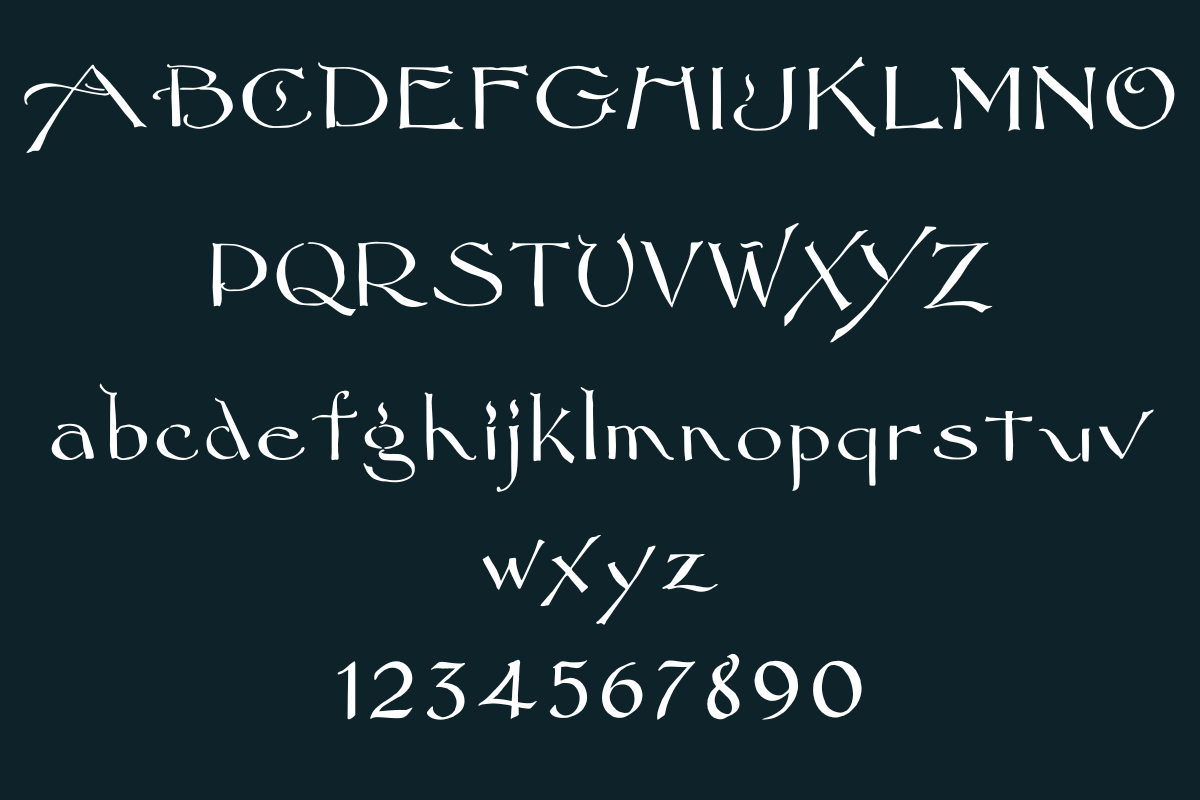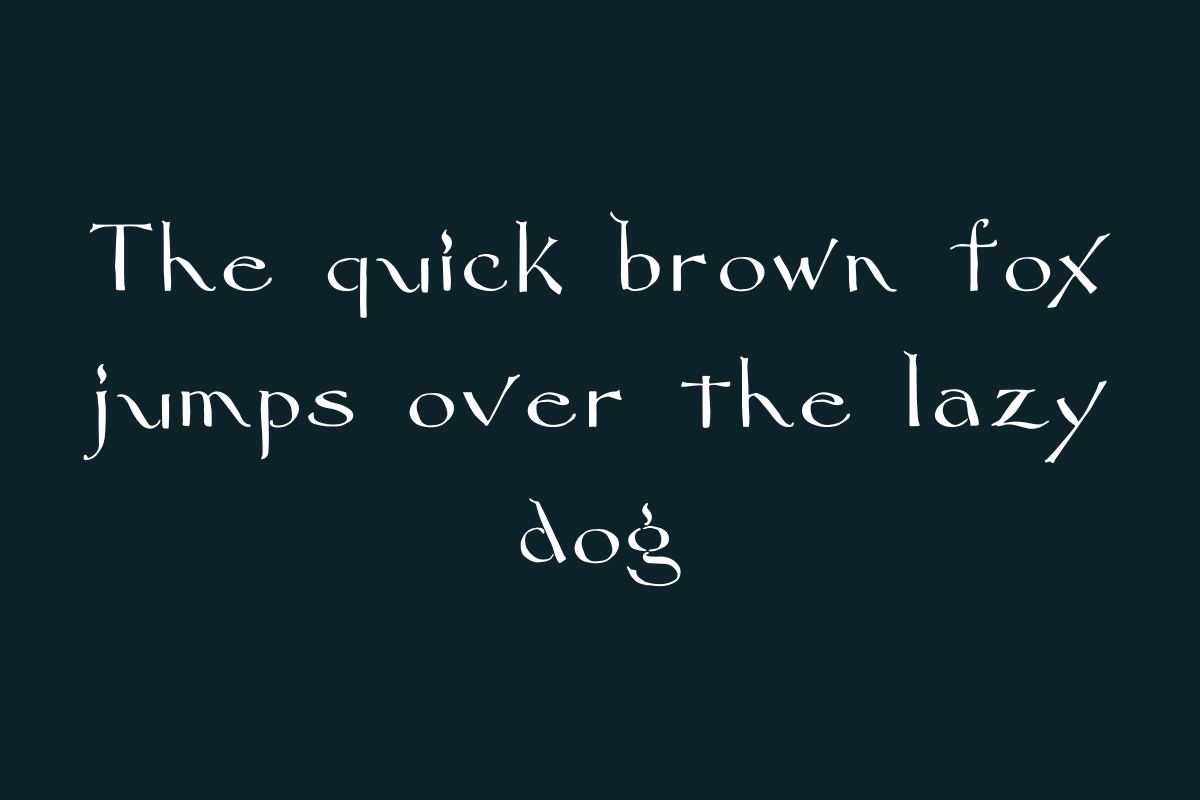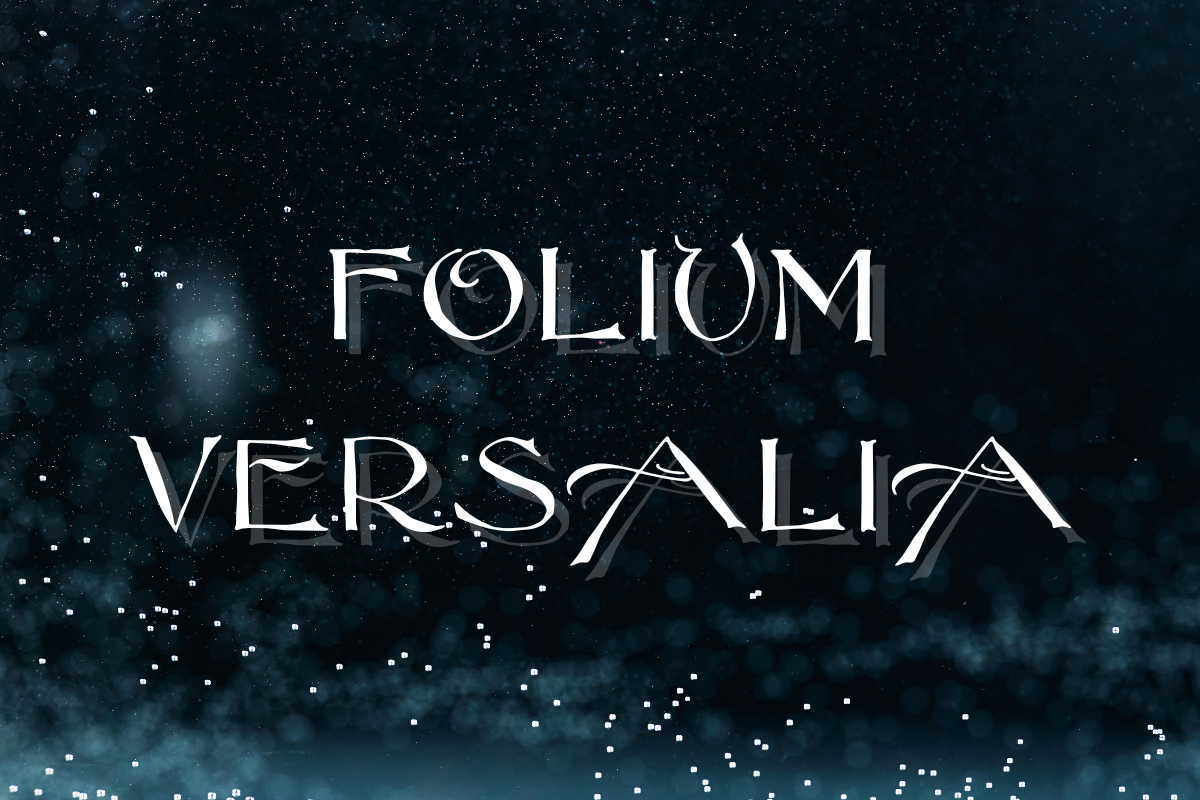
FoliumVersalia Display Font
Introducing the "FoliumVersalia Font" – a timeless masterpiece inspired by the rich heritage of medieval calligraphy and Celtic craftsmanship. This meticulously crafted font is your gateway to a world of captivating stories, where words come to life in a truly enchanting way. Perfect for storybooks, historical narratives, or any project seeking to transport readers to a bygone era, the FoliumVersalia Font is a testament to the art of typography.
Medieval Charm: Immerse your readers in a world of knights, castles, and ancient manuscripts with the timeless appeal of our medieval font. Each character exudes the elegance and grace of a bygone era.
Celtic Influence: Infused with the intricate details and patterns reminiscent of Celtic artistry, this font brings a touch of ancient mystique to your texts.
Calligraphic Elegance: Every character is lovingly handcrafted, reminiscent of the finest calligraphy. The strokes flow with artistic precision, making every word a visual delight.
Versal Versatility: With versatile applications, the FoliumVersalia Font is designed to grace your creative projects, whether it's for book covers, chapter headings, branding, or decorative elements. Its captivating design and readability make it an ideal choice for a wide range of applications.
Insular Inspiration: The font's design draws inspiration from Insular scripts, known for their distinctive letterforms, making it a unique and fascinating choice for your typography needs.